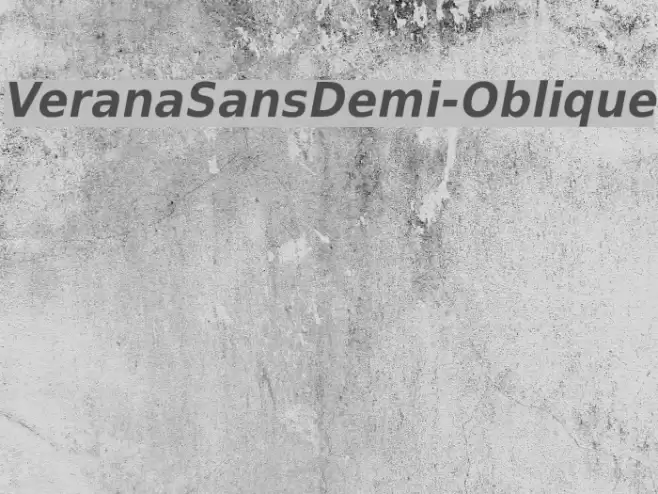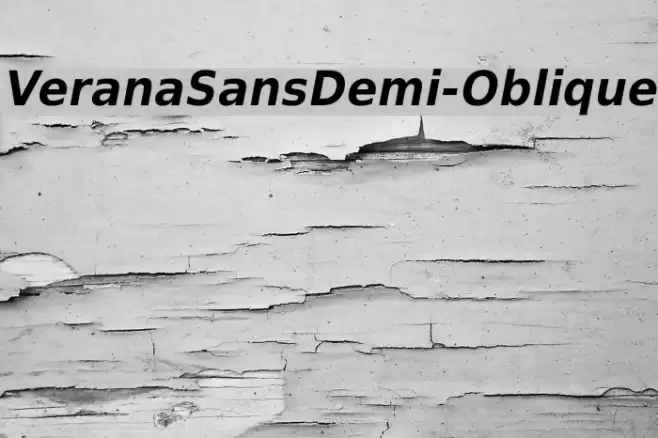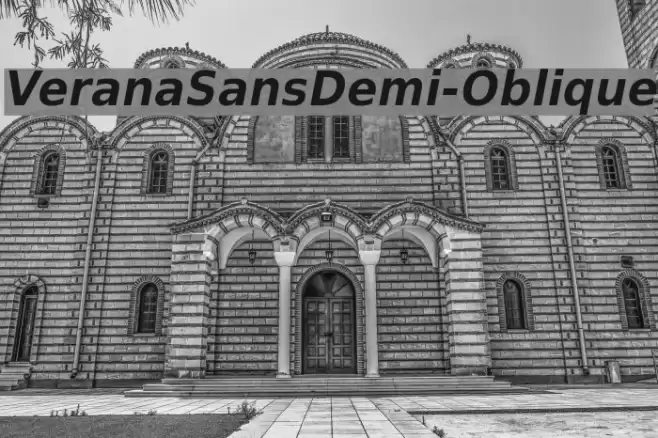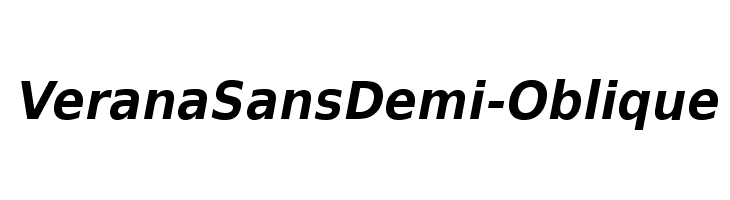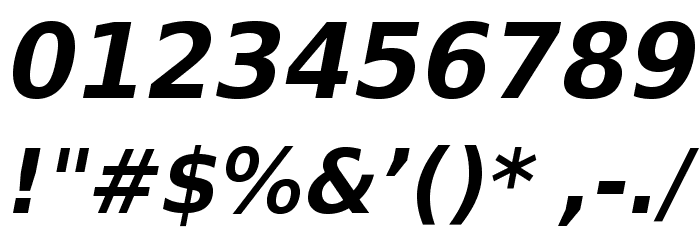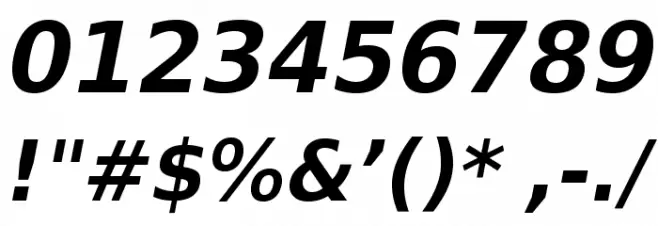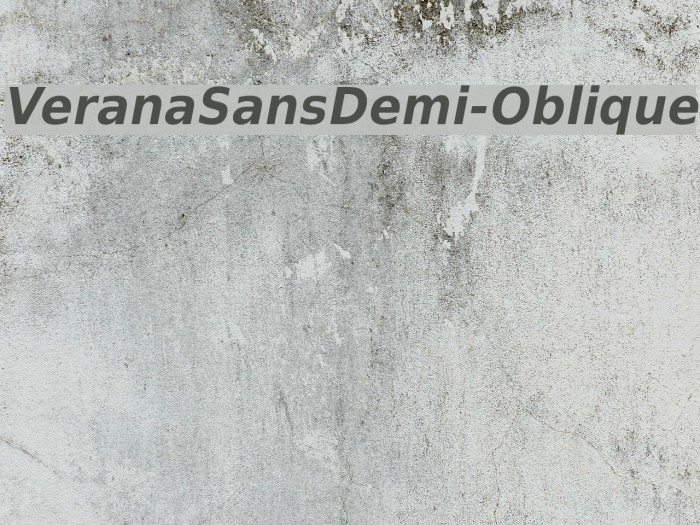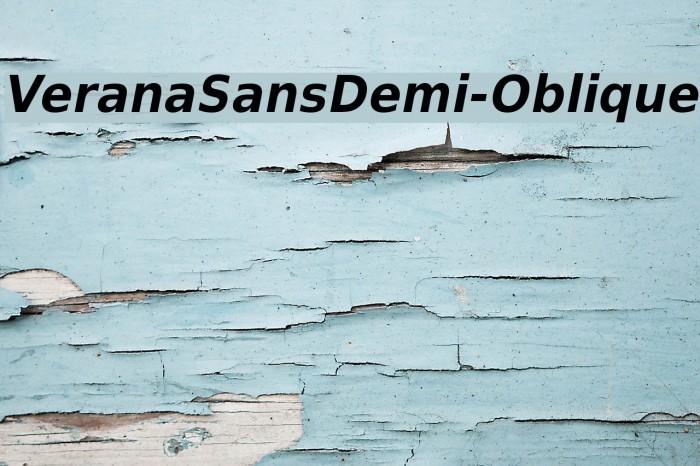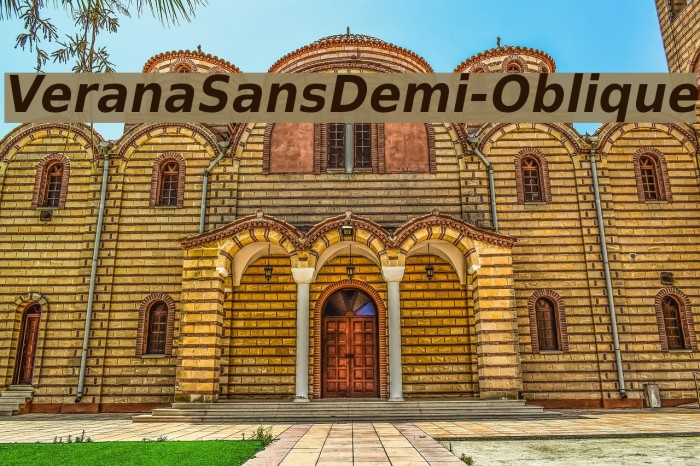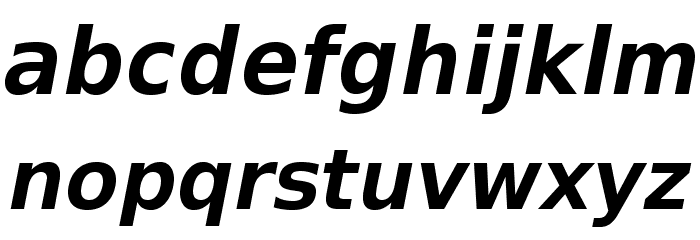
VeranaSansDemi-Oblique
This font features a clean and modern sans-serif style with a slight oblique slant, giving it a dynamic and forward-moving appearance. The characters are well-proportioned, with a consistent stroke width that maintains readability across various sizes. The uppercase letters are bold and assertive, while the lowercase letters offer a softer, more approachable feel. Numerals are clear and distinct, making them suitable for data presentation. The special characters are well-integrated, maintaining the overall aesthetic of the font. This font's design is versatile, making it suitable for both digital and print media.
A modern, oblique sans-serif font with clean lines and a dynamic appearance.
- Proposed Projects: Ideal for branding, advertising, web design, and editorial layouts.